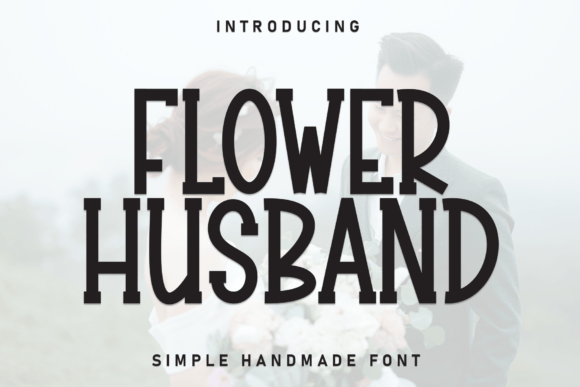
Introducing Flower Husband Font: The Perfect Blend of Simplicity and Friendliness
In the world of typography, fonts play a crucial role in conveying the tone and personality of a brand or design. With the numerous font options available, it can be challenging to find the perfect one that strikes a balance between simplicity and friendliness. However, if you’re looking for a font that embodies modern handwritten typography with a polished finish, look no further than the Flower Husband Font.
What is Flower Husband Font?
Flower Husband Font is a casual and neat display font that combines simplicity with a friendly, approachable vibe. This font features clean lines, balanced letterforms, and subtle rounded edges, making it an ideal choice for various design applications. Whether you’re working on branding, headlines, packaging, or digital content, Flower Husband Font is sure to add a warm and inviting touch to your design.
Key Features of Flower Husband Font
- Clean Lines: The font boasts clean lines that give it a crisp and modern look, making it perfect for designs that require a touch of sophistication.
- Balanced Letterforms: The letterforms are carefully crafted to ensure balance and harmony, resulting in a visually appealing font that’s easy on the eyes.
- Subtle Rounded Edges: The subtle rounded edges add a touch of friendliness and approachability to the font, making it perfect for designs that require a warm and inviting tone.
- Modern Handwritten Typography: Flower Husband Font captures the essence of modern handwritten typography with a polished finish, giving it a unique and distinctive look.
Uses of Flower Husband Font
Flower Husband Font is a versatile font that can be used in various design applications, including:
- Branding: Use Flower Husband Font to create a unique and memorable brand identity that reflects your company’s personality and values.
- Headlines: The font’s clean lines and balanced letterforms make it perfect for headlines that require a touch of sophistication and elegance.
- Packaging: Add a warm and inviting touch to your packaging design with Flower Husband Font, making it perfect for product labels and packaging materials.
- Digital Content: Use the font to create engaging and visually appealing digital content, such as blog posts, social media graphics, and website headers.
Benefits of Using Flower Husband Font
Using Flower Husband Font in your design projects offers several benefits, including:
- Clarity: The font’s clean lines and balanced letterforms ensure clarity and legibility, making it easy to read and understand.
- Charm: The subtle rounded edges and modern handwritten typography give the font a unique charm that adds a touch of personality to your design.
- Versatility: Flower Husband Font is a versatile font that can be used in various design applications, making it a great addition to your font library.
- Time-Saving: With its polished finish and ready-to-use design, Flower Husband Font saves you time and effort in creating custom fonts from scratch.
Tips for Using Flower Husband Font Effectively
To get the most out of Flower Husband Font, here are some tips to keep in mind:
- Use it for Headlines and Titles: The font’s clean lines and balanced letterforms make it perfect for headlines and titles that require a touch of sophistication.
- Pair it with Other Fonts: Experiment with pairing Flower Husband Font with other fonts to create a unique and visually appealing typography.
- Adjust Font Size and Color: Adjust the font size and color to suit your design needs and ensure that the font is legible and easy to read.
- Use it Consistently: Use Flower Husband Font consistently throughout your design to create a cohesive and professional look.
In conclusion, Flower Husband Font is a casual and neat display font that combines simplicity with a friendly, approachable vibe. With its clean lines, balanced letterforms, and subtle rounded edges, it’s perfect for designs that require a touch of modern handwritten typography with a polished finish. Whether you’re working on branding, headlines, packaging, or digital content, Flower Husband Font is sure to add a warm and inviting touch to your design. So why wait? Download Flower Husband Font today and take your design to the next level!